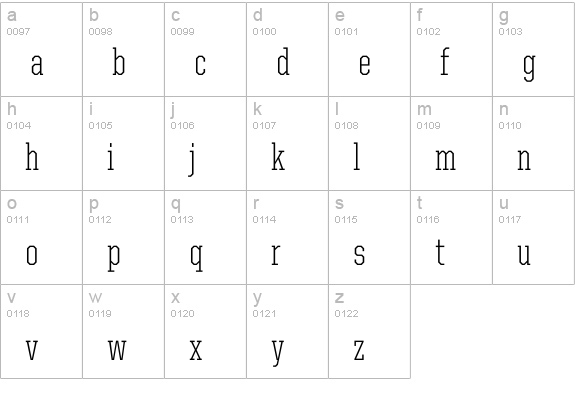
United Serif Cond Light Font Details
United Serif Cond Light is a refined, elegant, condensed-width variant in the United typeface family \xE2\x80\x94 well suited to elegant body text, refined sub-headings, and luxury branding.
United Serif Cond Light is a modern and elegant font that exudes sophistication and professionalism. Its sleek and refined design makes it perfect for a wide range of applications, from corporate branding to editorial design. With its condensed proportions, it allows for more text to be displayed within a limited space, making it ideal for projects that require a clean and compact look. This font features clean lines and sharp serifs, giving it a timeless appeal that will never go out of style. The light weight adds a touch of delicacy and grace to any design, while still maintaining excellent legibility. Whether used in headlines, body text, or both, United Serif Cond Light effortlessly brings a touch of sophistication to any project. And the best part is, United Serif Cond Light is available for free! You can easily download this font from FontsMarket.com, a trusted source for high-quality fonts. By offering this font for free, it allows designers and creatives of all kinds to access a professional and versatile typeface without any financial constraints. So whether you're working on a corporate presentation, a magazine layout, or a website design, United Serif Cond Light is the perfect choice. With its timeless elegance and its availability as a free download, this font is a must-have in any designer's toolkit. Don't miss out on the opportunity to elevate your designs with United Serif Cond Light - get it now at FontsMarket.com and unlock endless creative possibilities.